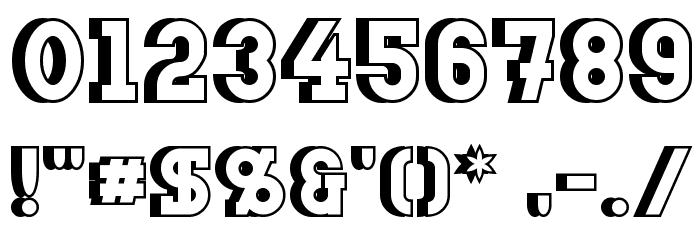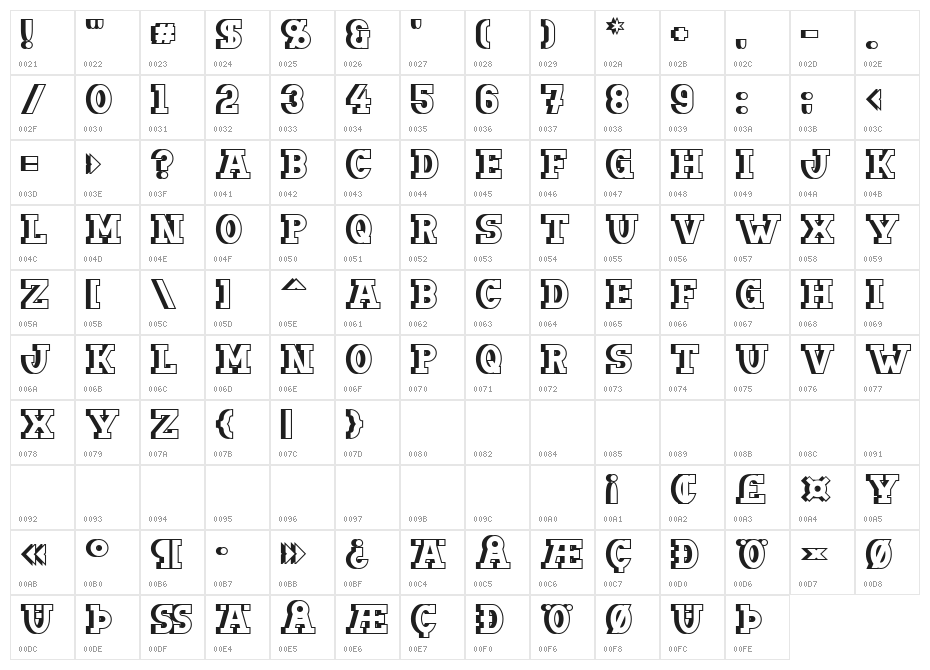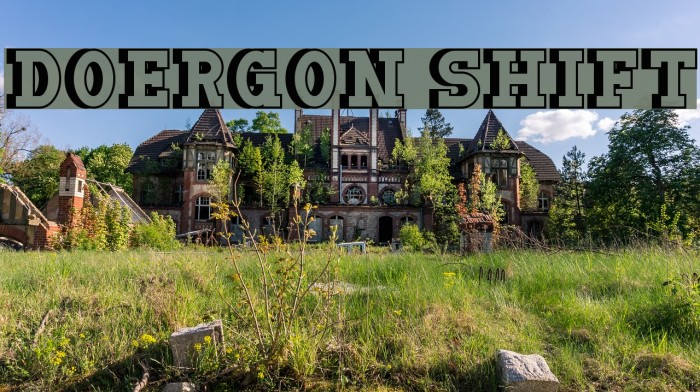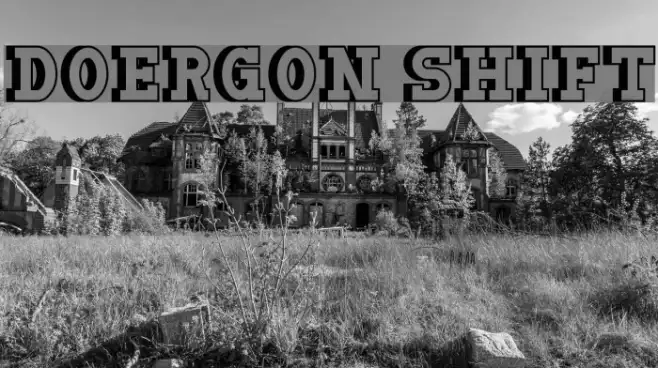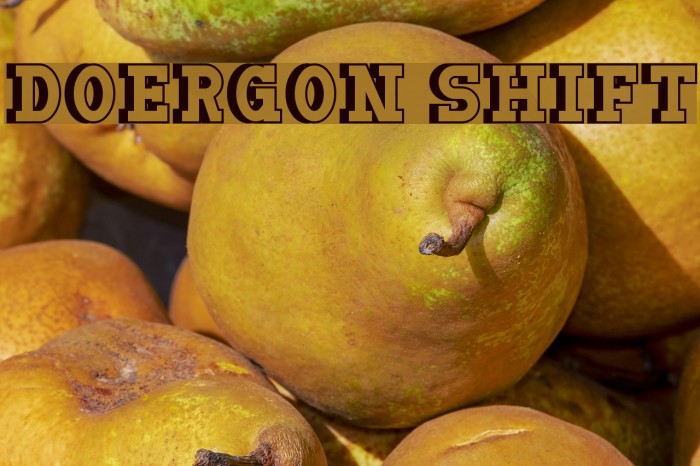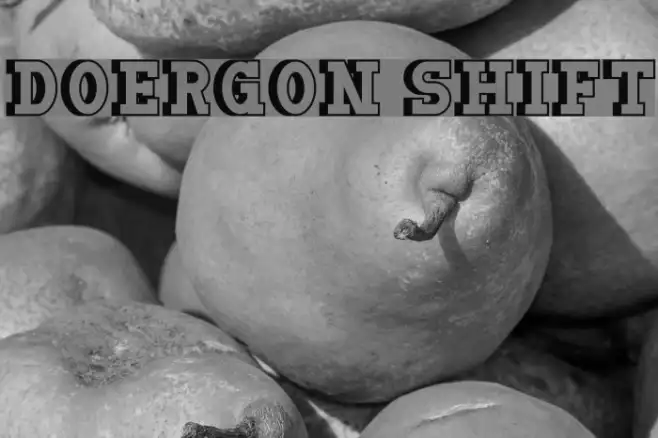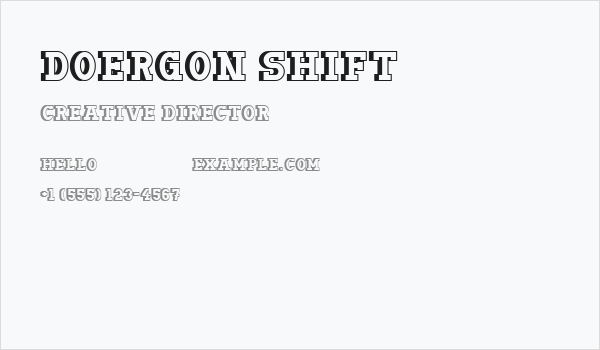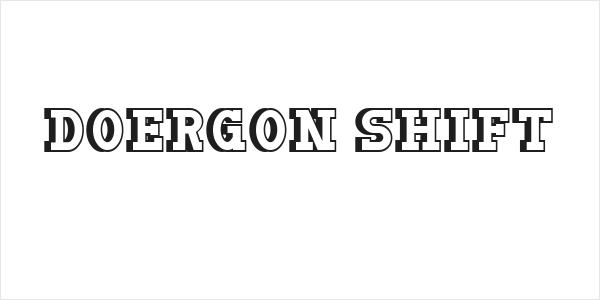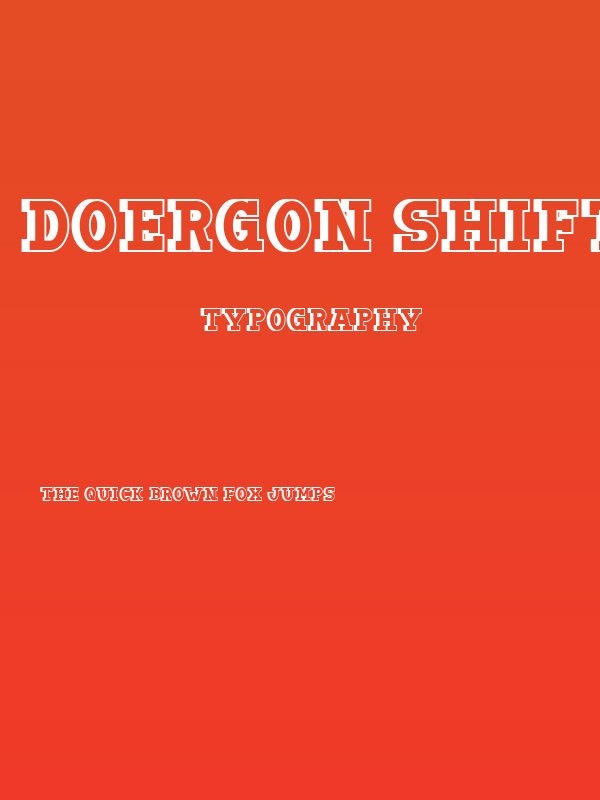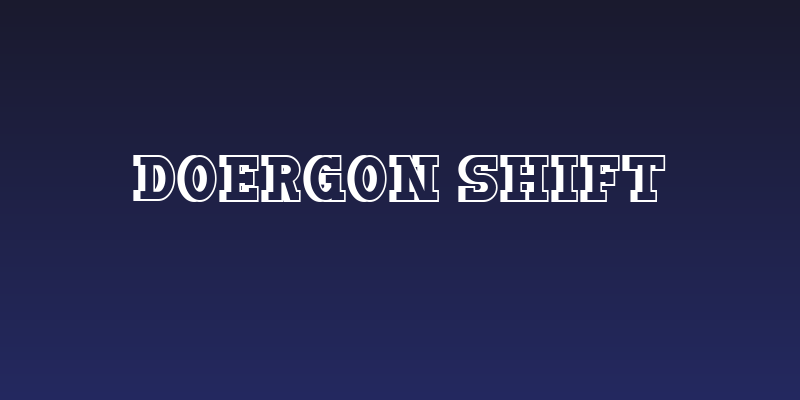
Doergon Shift Font
Doergon Shift Description
This font features a bold and impactful design with a three-dimensional effect created by a shadow or outline. The characters are uppercase and have a strong, geometric structure with consistent stroke widths. The style is reminiscent of vintage or retro signage, offering a sense of nostalgia while maintaining a modern edge. The numerals and special characters follow the same bold and structured design, ensuring uniformity across all glyphs. This font's unique style makes it stand out, making it ideal for attention-grabbing headlines or titles.
| Proposed Projects | Ideal for retro-themed posters, logos, signage, and branding materials that require a bold statement. |